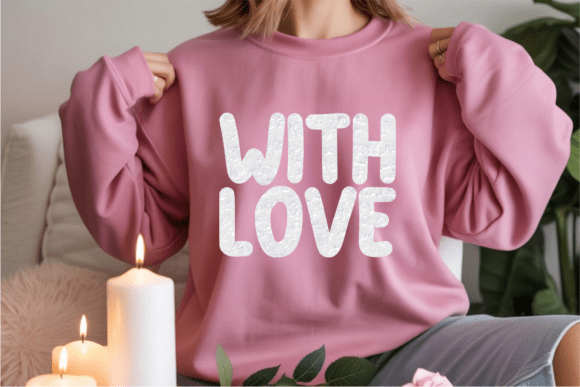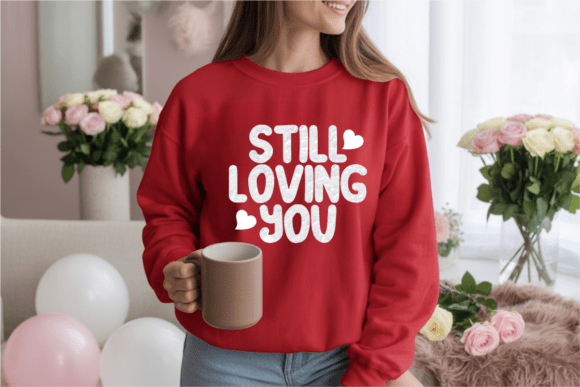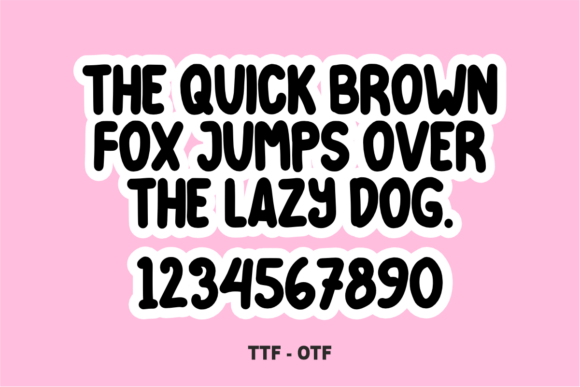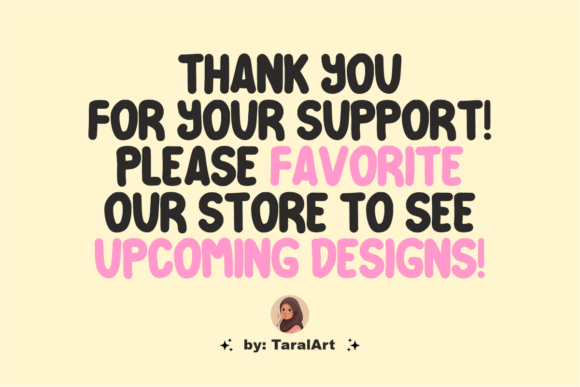
Bubble Valentine Font: The Sweetest Way to Express Love and Joy
Are you looking for a font that embodies the spirit of love, sweetness, and playfulness? Look no further than Bubble Valentine, a fantastically fun and overtly romantic display font that’s perfect for designers and crafters who want to create cheerful, love-themed materials. With its ultra-chunky, buoyant letterforms and soft, rounded finish, this typeface is sure to capture the hearts of your audience.
The Perfect Font for Romantic Occasions
Bubble Valentine is specifically designed to make your Valentine’s Day content, party invitations, personalized merchandise, confectionery packaging, wedding or engagement announcements, and playful social media posts stand out from the crowd. The bright pink color and integrated heart decorations give this font an unmistakable romantic charm that’s sure to delight. Whether you’re a designer, crafter, or simply someone who loves to create, Bubble Valentine is the perfect tool to infuse your designs with joy and fun.
Key Features of Bubble Valentine Font
- Ultra-chunky, buoyant letterforms: The thick, lovable letters ensure high impact and a genuinely happy, friendly tone that’s perfect for creating eye-catching designs.
- Soft, rounded finish: The soft, rounded finish gives Bubble Valentine a sweet, playful aesthetic that’s reminiscent of bubble-gum pop.
- Bright pink color: The vibrant pink color is sure to grab attention and add a touch of romance to your designs.
- Integrated heart decorations: The heart decorations add an extra touch of whimsy and romance, making this font perfect for love-themed designs.
Why Choose Bubble Valentine Font?
So, why choose Bubble Valentine font for your next project? Here are just a few reasons:
- Perfect for Valentine’s Day content: Create eye-catching Valentine’s Day cards, invitations, and social media posts that will make your audience feel loved and appreciated.
- Ideal for party invitations: Use Bubble Valentine to create playful and festive party invitations that will set the tone for a fun and romantic celebration.
- Great for personalized merchandise: Add a touch of sweetness to your personalized merchandise, such as t-shirts, mugs, and phone cases, with Bubble Valentine font.
- Adorable confectionery packaging: Use Bubble Valentine to create adorable confectionery packaging that will make your treats stand out from the crowd.
Tips for Using Bubble Valentine Font
Here are a few tips for using Bubble Valentine font in your designs:
- Pair with complementary fonts: Pair Bubble Valentine with complementary fonts to create a visually appealing design.
- Experiment with colors: While the bright pink color is a signature feature of Bubble Valentine, don’t be afraid to experiment with other colors to create a unique look.
- Add graphics and illustrations: Add graphics and illustrations to your design to make it more visually appealing and engaging.
In conclusion, Bubble Valentine font is the perfect way to add a touch of love, sweetness, and playfulness to your designs. With its ultra-chunky, buoyant letterforms, soft, rounded finish, bright pink color, and integrated heart decorations, this font is sure to capture the hearts of your audience. Whether you’re a designer, crafter, or simply someone who loves to create, Bubble Valentine is the essential tool you need to create cheerful, love-themed materials that will make every word feel like a sweet, pink embrace.